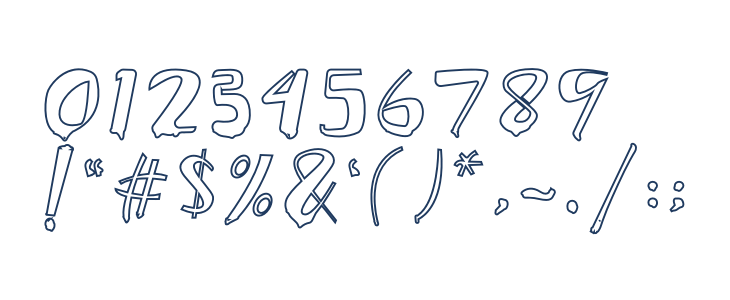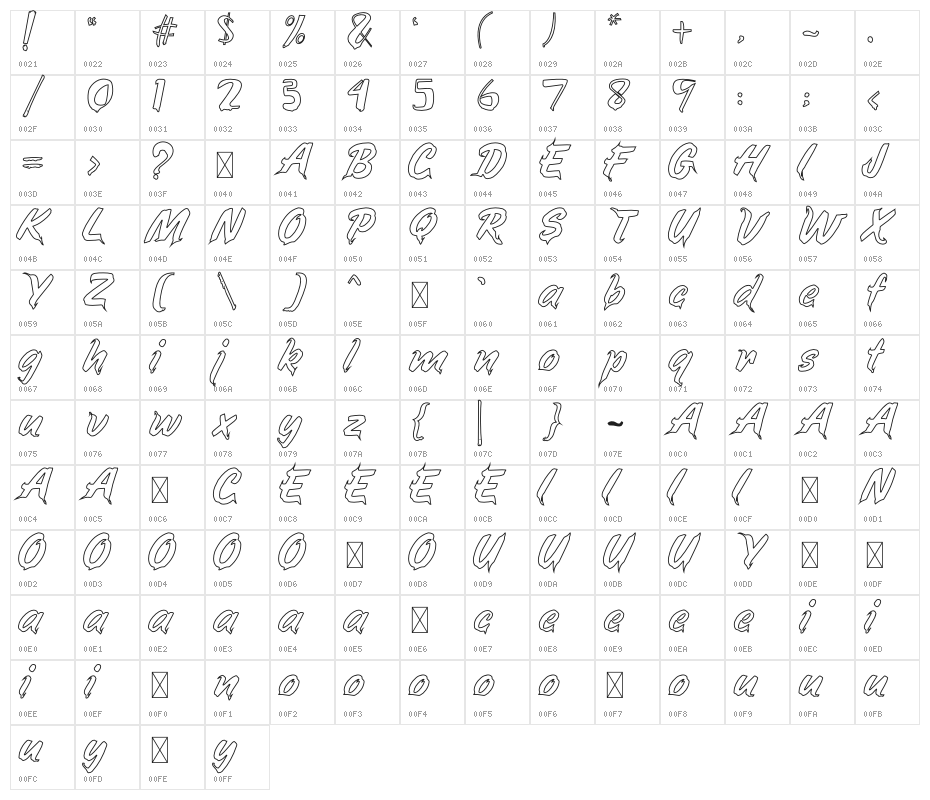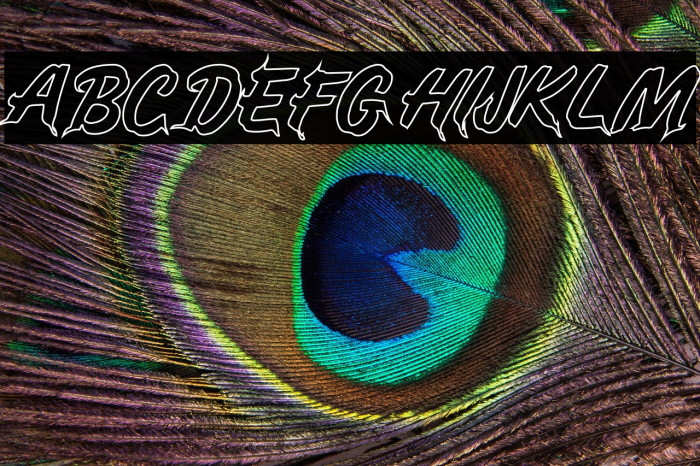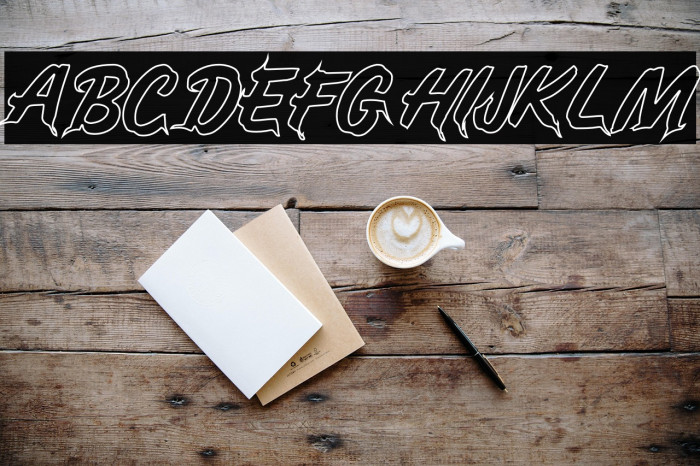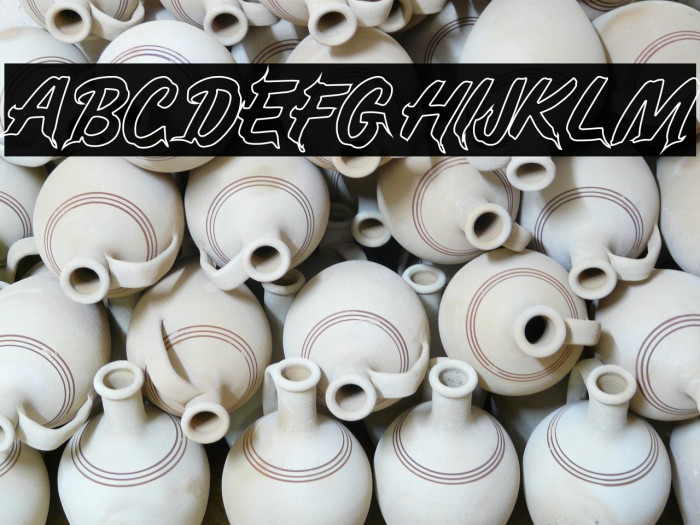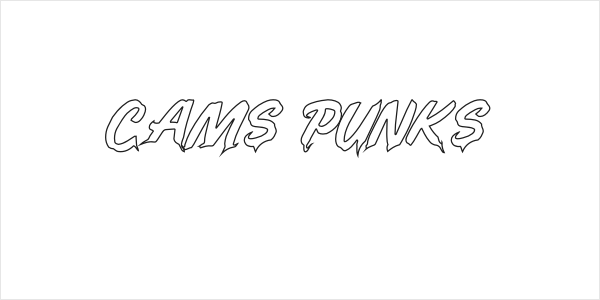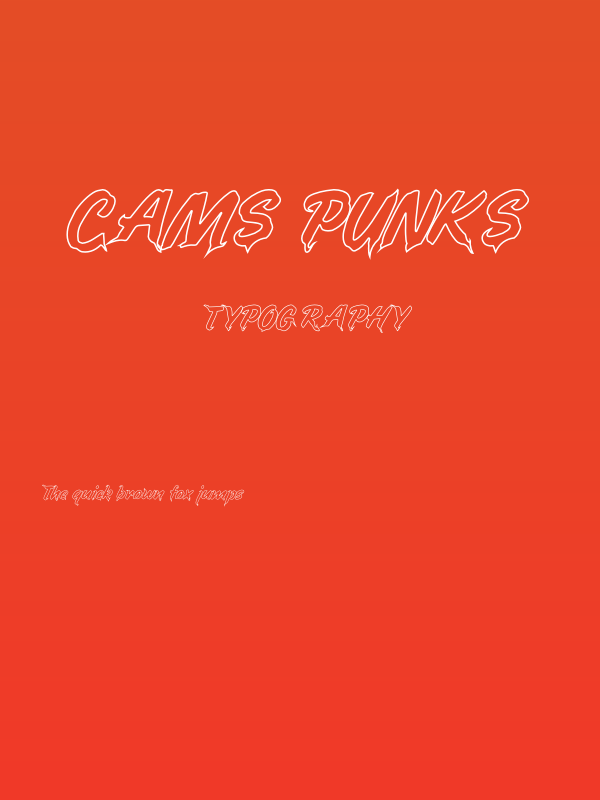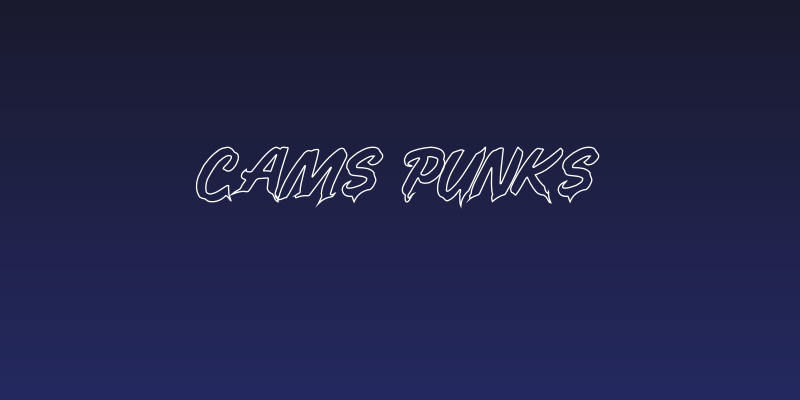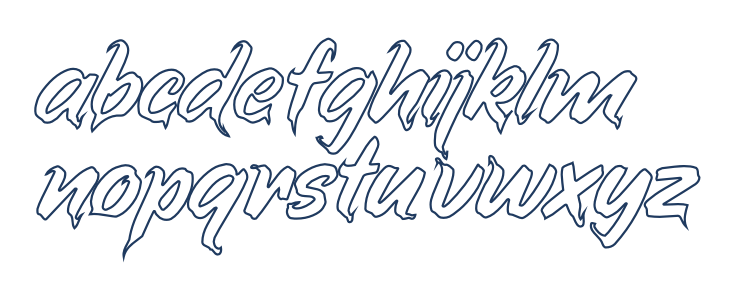
CAMS PUNKS Font
CAMS PUNKS Description
This font features a bold and edgy style with sharp, angular lines that give it a dynamic and rebellious feel. The uppercase and lowercase letters are designed with a consistent slant, adding a sense of motion and energy. The characters have a distinct outline, enhancing their boldness and making them stand out. The numerals and special characters follow the same stylistic approach, ensuring uniformity across all glyphs. This font's unique design makes it suitable for projects that require a strong and impactful visual presence.